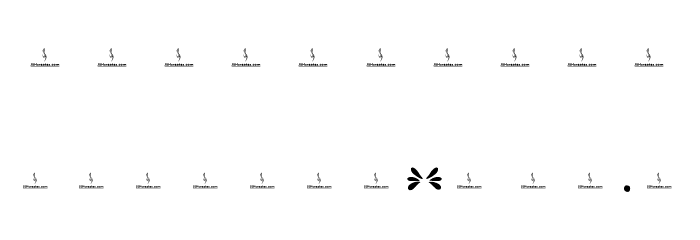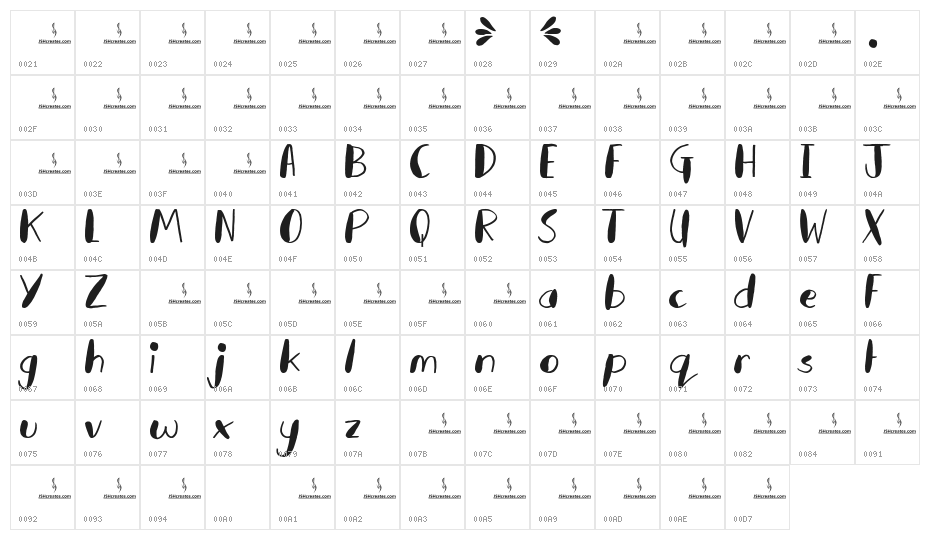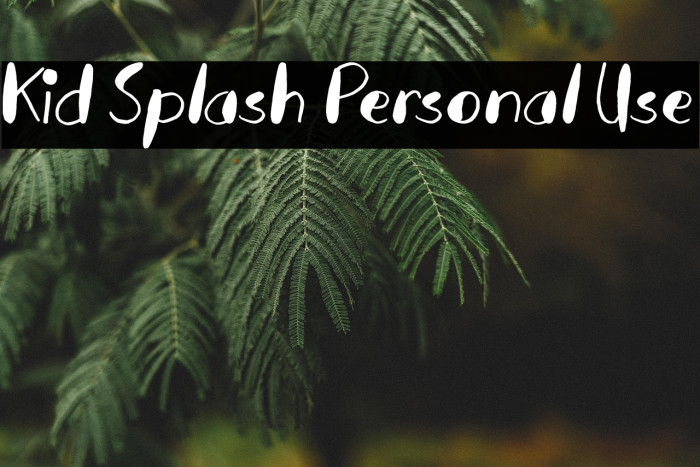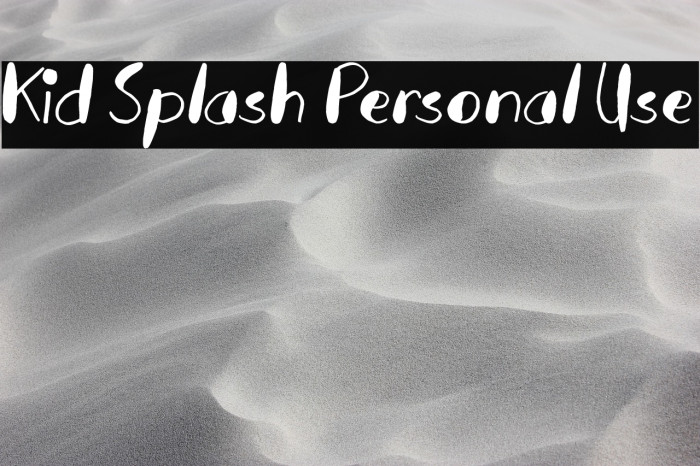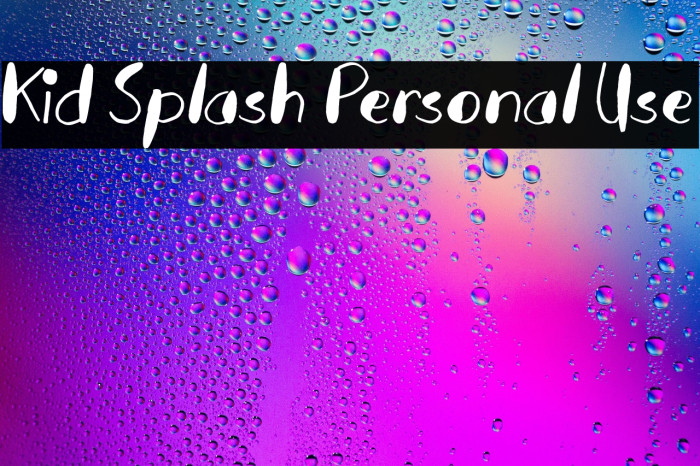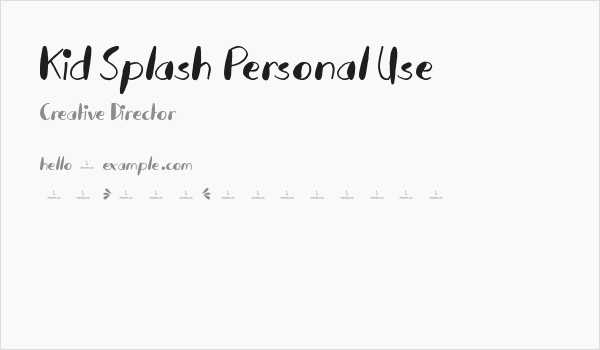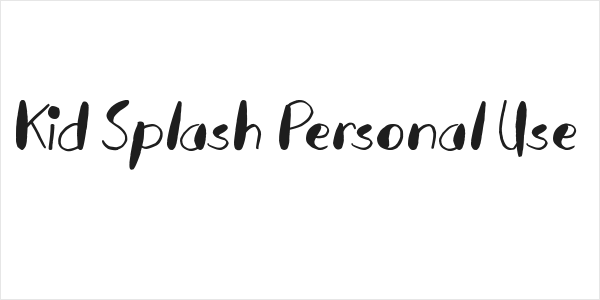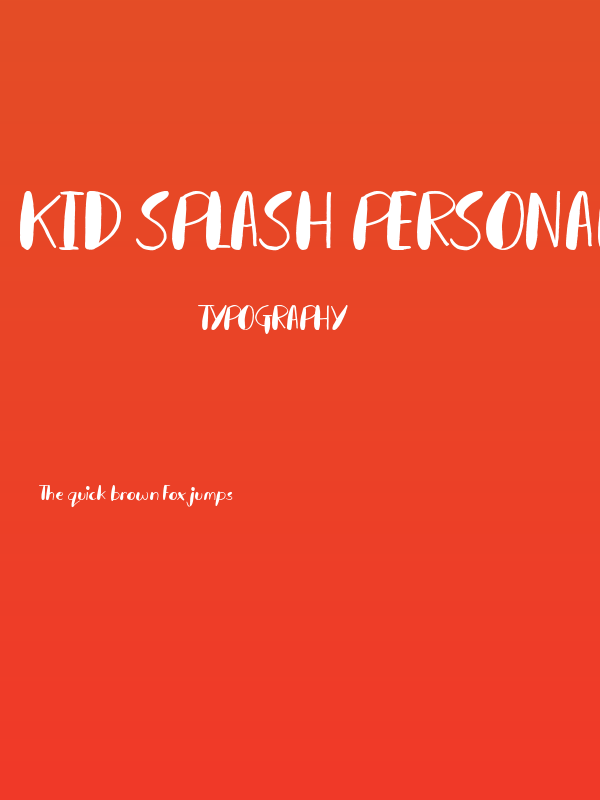
Kid Splash Personal Use Font
Kid Splash Personal Use Description
This playful and energetic font features a hand-drawn style with bold, irregular strokes that give it a dynamic and lively appearance. The letters have a whimsical, almost brush-like quality, with varying thicknesses that add to its charm. The uppercase characters are tall and slightly narrow, while the lowercase letters maintain a consistent flow, enhancing readability. The numbers and special characters follow the same playful aesthetic, making the font versatile for creative projects. Its unique style is perfect for adding a personal touch to any design.
| Proposed Projects | Ideal for children's book covers, playful branding, greeting cards, and creative posters. |